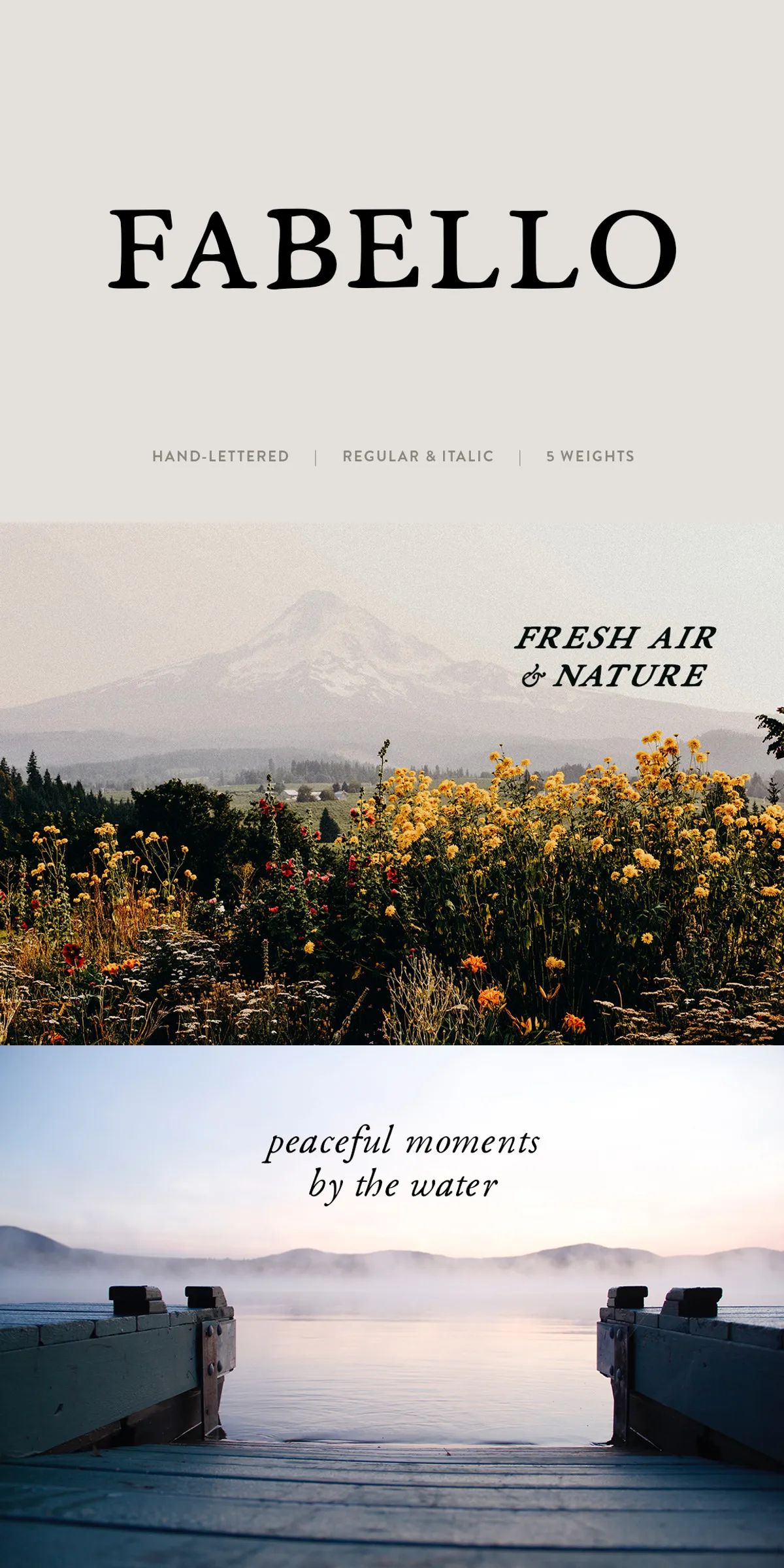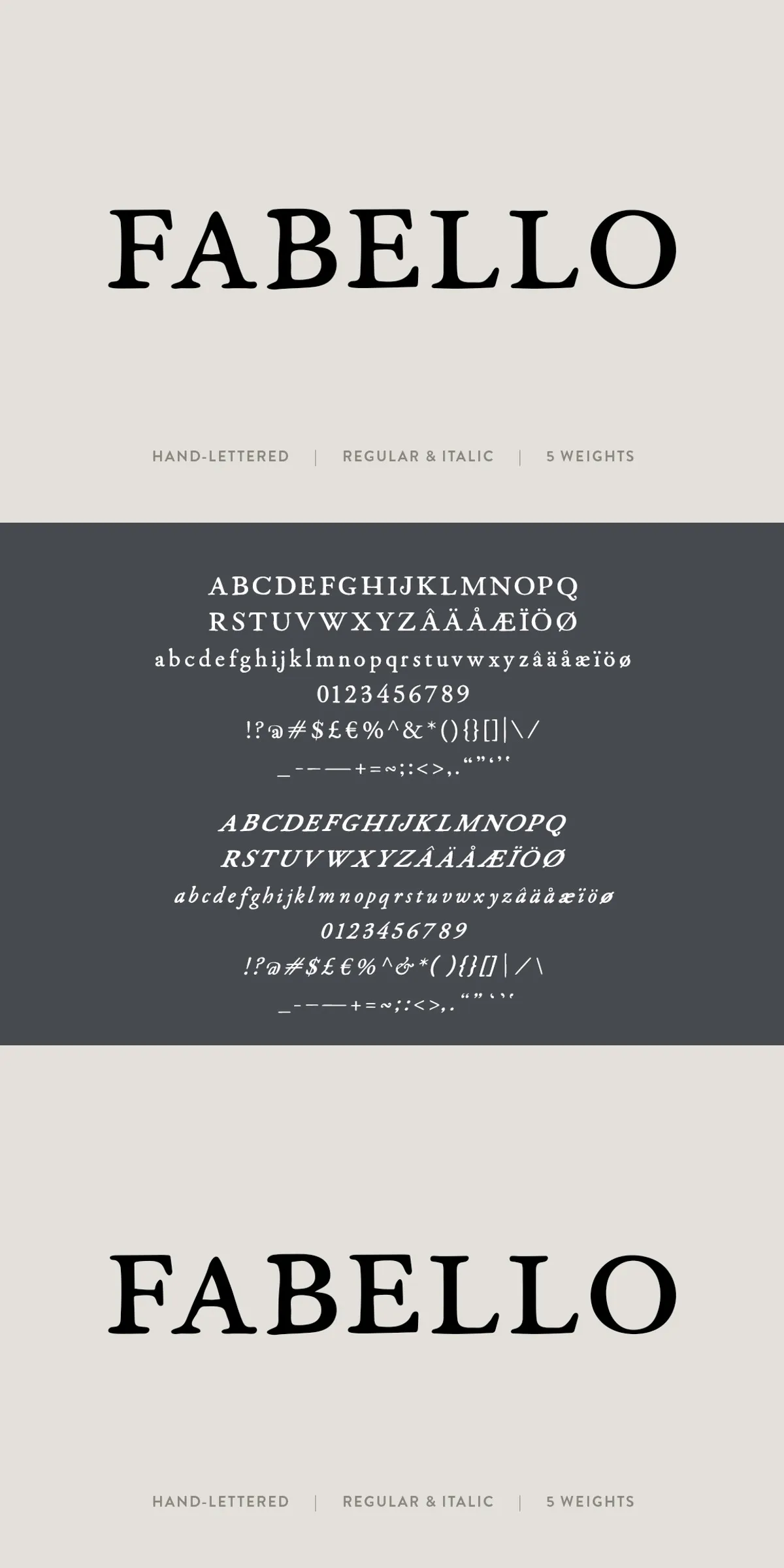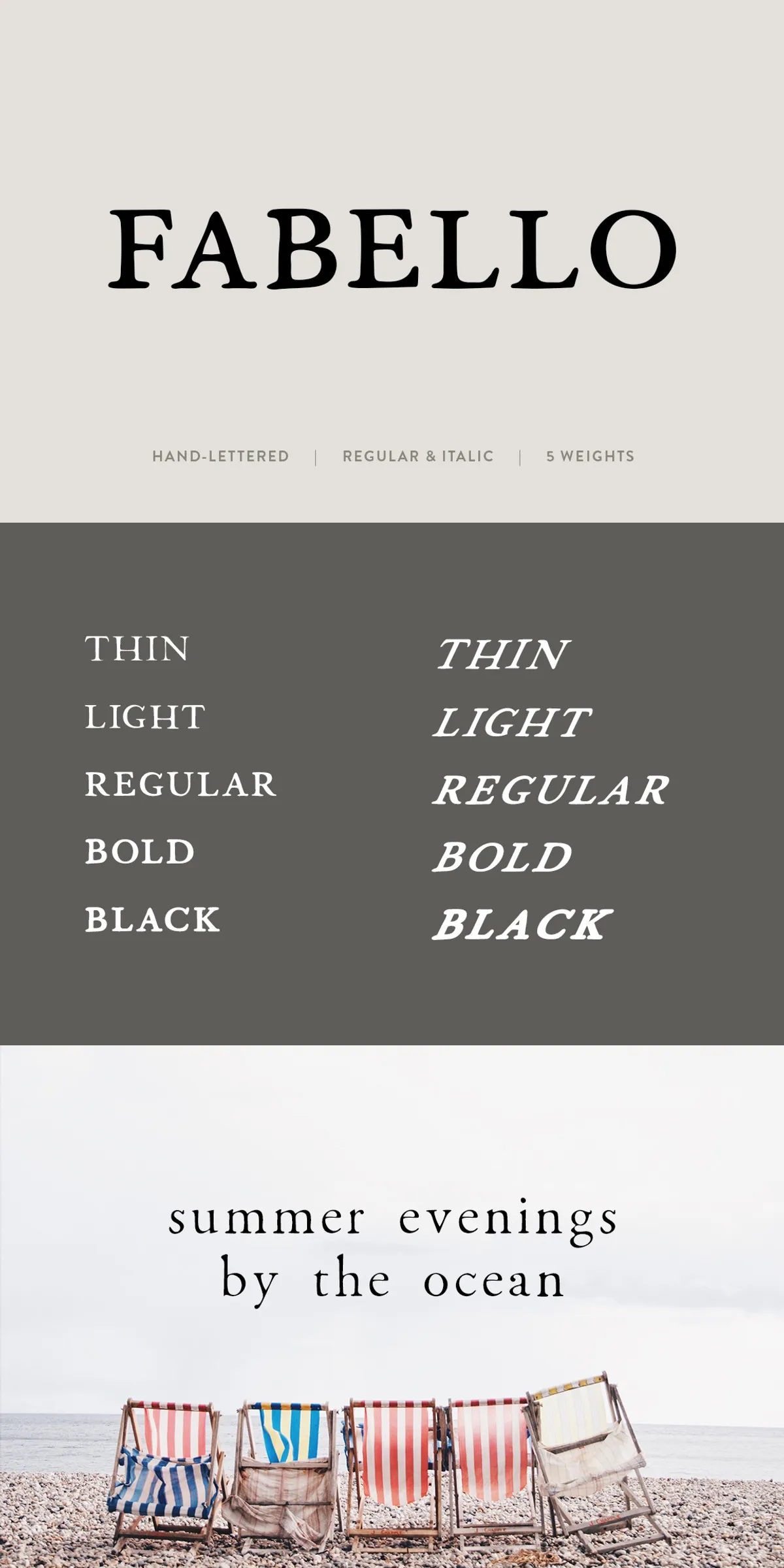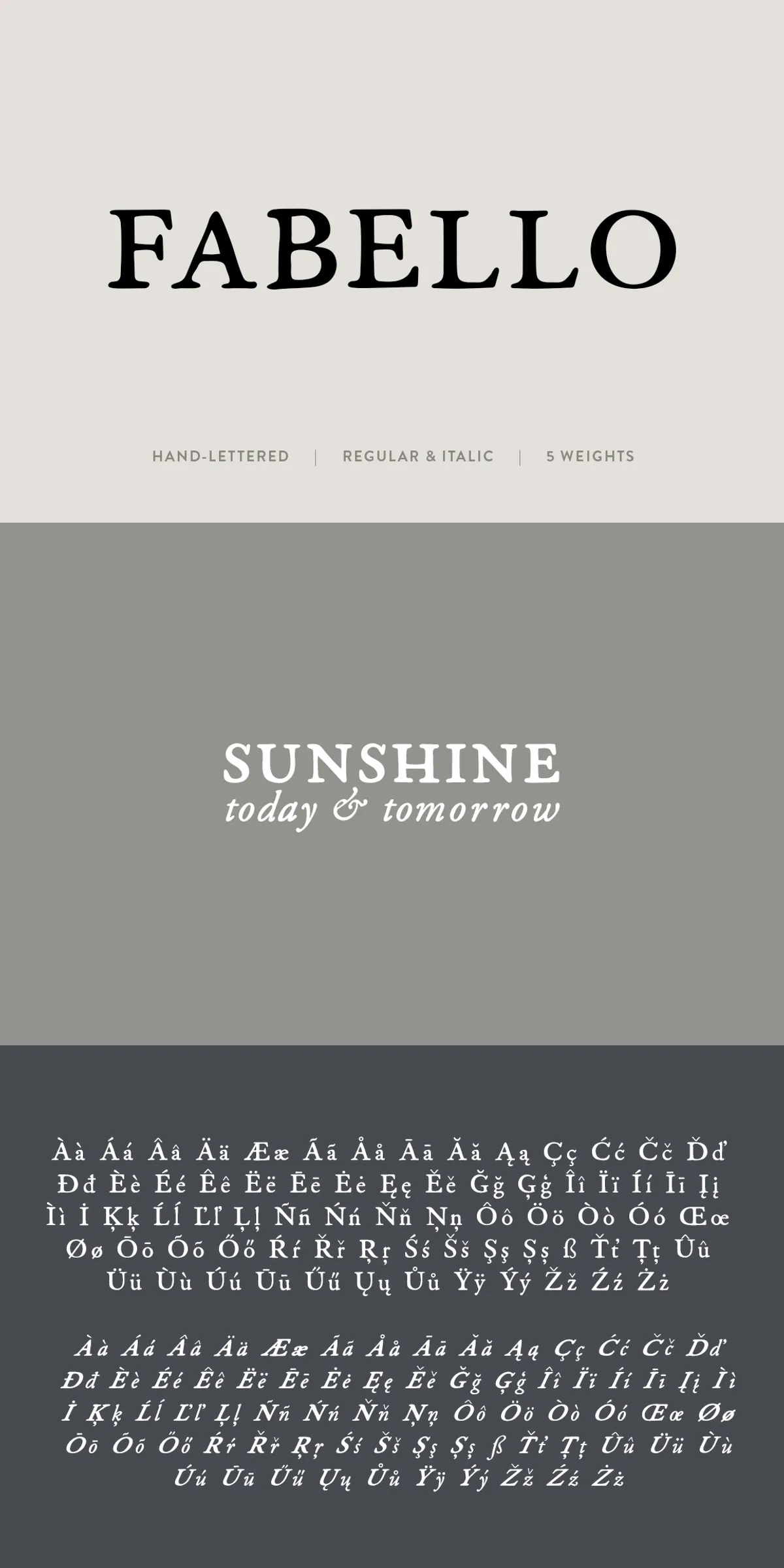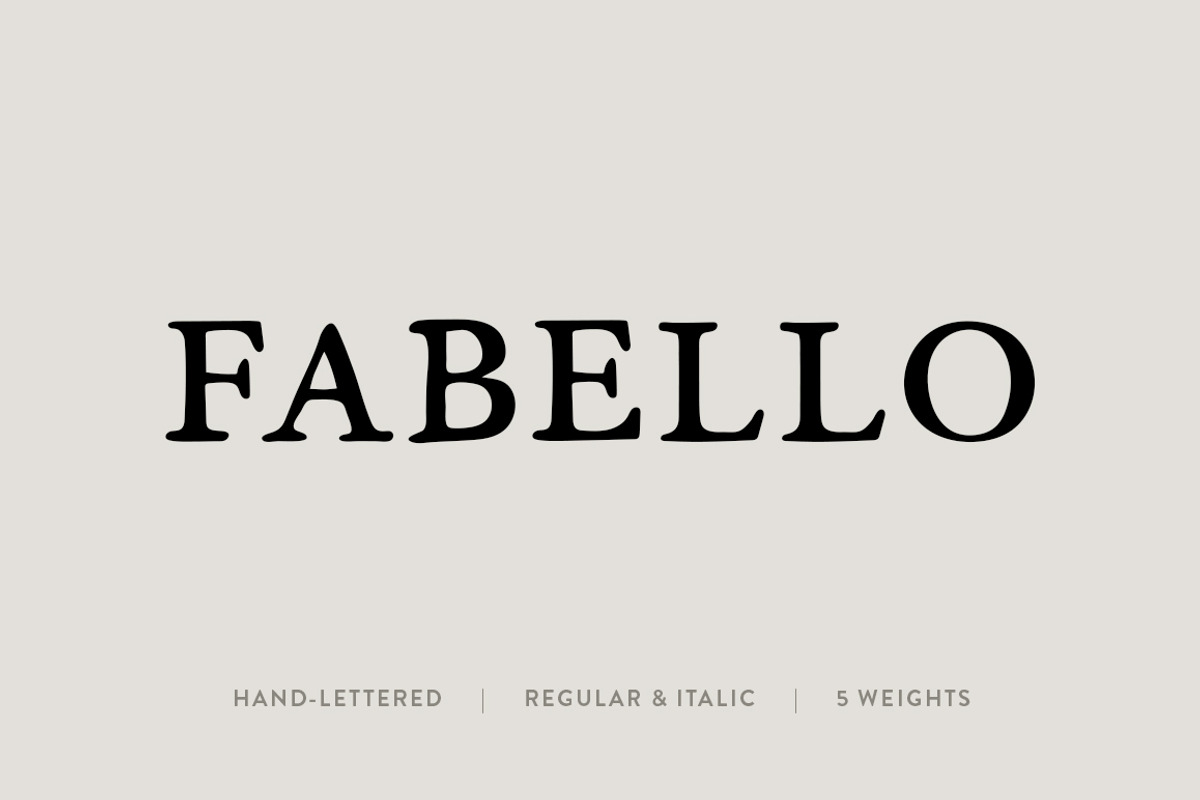
Step into the world of authentic craftsmanship with Fabello, a thoughtfully designed serif font that blends vintage inspiration with a modern, organic touch. Created by hand and carefully digitized, Fabello isn’t just a font — it’s a testament to the artistry of lettering. From a distance, its crisp, clean lines command attention with bold clarity. But look closer, and you’ll discover the magic: a gentle, alive organic wave running through each stroke, giving every character a sense of movement, breathing life into static text.
Designed with Heart, Built for Versatility
Fabello was born from a personal design philosophy — to create a typeface that feels both timeless and uniquely expressive. It nods to the past with its elegant, handcrafted structure, but never feels dated. Instead, it strikes a delicate balance between classic refinement and contemporary fluidity, making it ideal for projects across genres and industries.
Whether you’re crafting a bold headline for a luxury brand, designing a high-end wedding invitation, building a creative portfolio, or launching a boutique product line, Fabello delivers unmatched presence and character. Its versatility shines through in multiple weights — from naturally bold forms that dominate the page to subtle, minimalist thin variants perfect for refined, understated elegance.
Rich Character Set with Full Multilingual Support
With an extensive character set that goes far beyond the standard alphabet, Fabello is built to empower global creators. It includes:
- All Latin letters (uppercase and lowercase)
- Extended diacritics: À à Á á Â â Ä ä Æ æ Ã ã Å å Ā ā Ă ă Ą ą Ç ç Ć ć Č č Ď ď Đ đ È è É é Ê ê Ë ë Ē ē Ė ė Ę ğ Ą Ż ż 0 1 2 3 4 5 6 7 8 9
- Special symbols: @ : . ! ? ( ) [ ] { } – + * , ; ~ $ % & | = — – _ ^ £ € “ ” ` ’ # ` ¹ ² ³ ª º ¢ • ¥ … § ¡ ¿ « » © ® × °
- Full support for Central and Western European languages, including French, German, Spanish, Italian, Dutch, Portuguese, and more
Every character is meticulously hand-crafted to maintain visual harmony and structural integrity. No shortcuts. No compromises. Just pure, expressive typography that speaks through both form and feeling.
From Hand to Screen: The Art of Digital Lettering
Fabello was not generated by algorithm. It was drawn by hand — each stroke considered, each curve refined, each contrast balanced for emotional impact. That human touch is what gives the font its soul. This level of care ensures every letter feels intentional, alive, and full of personality.
Once digitized, Fabello retains its organic texture and nuanced rhythm, making it perfect for high-impact design work. Whether you’re using it in print, on websites, in motion graphics, or in social media content, it maintains clarity and presence — no matter the scale.
Perfect for a Wide Range of Creative Projects
- Brand Identity & Logo Design – Make a lasting impression with a font that feels both classic and original.
- Print & Packaging Design – Elevate product labels, boxes, and brochures with rich, tactile typography.
- Web and UI/UX – Use Fabello for headings and banners in websites, apps, and landing pages.
- Invitations & Greeting Cards – Perfect for weddings, birthdays, and special events with a touch of elegance.
- Digital Art & Social Media – Add bold, expressive text to illustrations, posters, and Reels.
Bring Storytelling to Your Typography with Fabello
Typography isn’t just about communication — it’s about connection. Fabello invites you to do more than display words. It encourages you to tell stories through your design. Its handcrafted nature means every letter carries intention, warmth, and authenticity.
Use it when you want your message to feel personal. When you need design that stands out not just for its appearance, but for its soul.